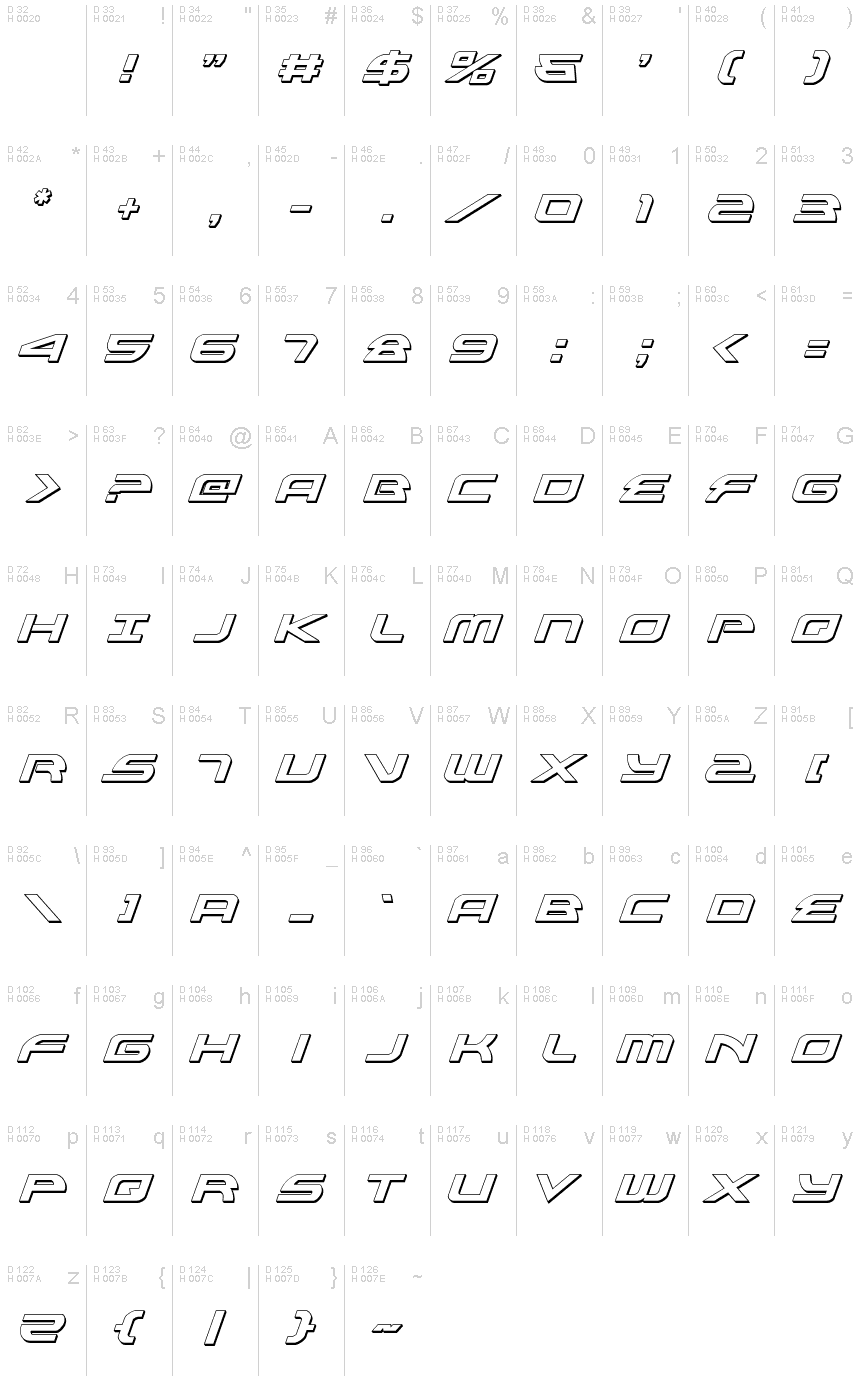
Alexis 3D Italic by Iconian Fonts is a free futuristic 3D display font with an extremely wide, forward-slanted silhouette, open interior lines, and the sleek profile of custom vehicle lettering. Dark offset layers make the letters look sharply machined.
It can move between motorsport branding and science fiction entertainment because its stretched proportions suggest speed as readily as advanced machinery, making it useful for racing posters, game title cards, and team merchandise. The beveled shadow treatment connects those applications to the visual world of arcade racers, televised auto events, futuristic sports broadcasts, and space-action graphics rather than ordinary corporate typography.
Alexis 3D Italic